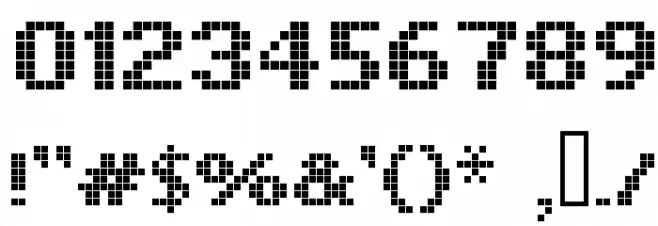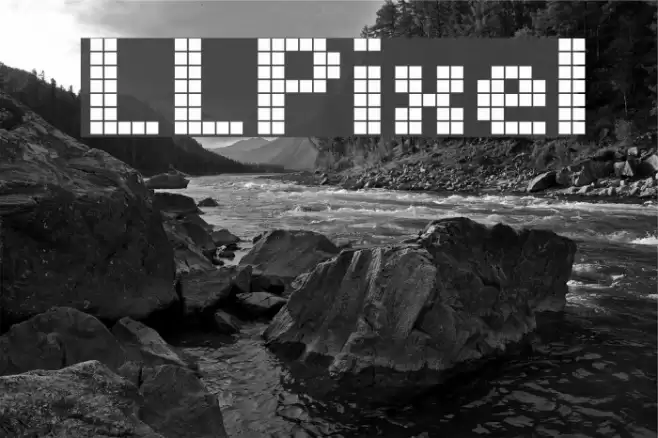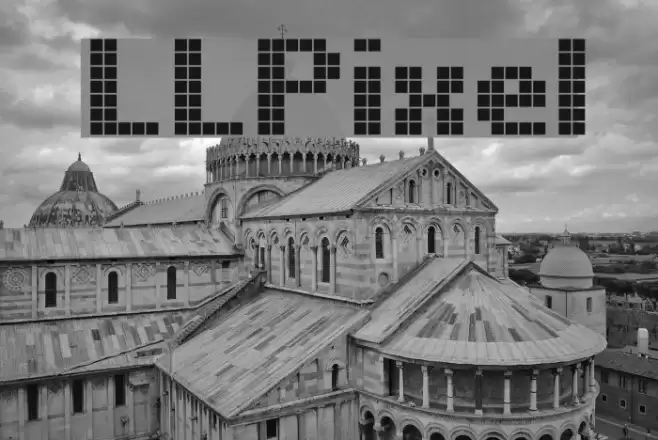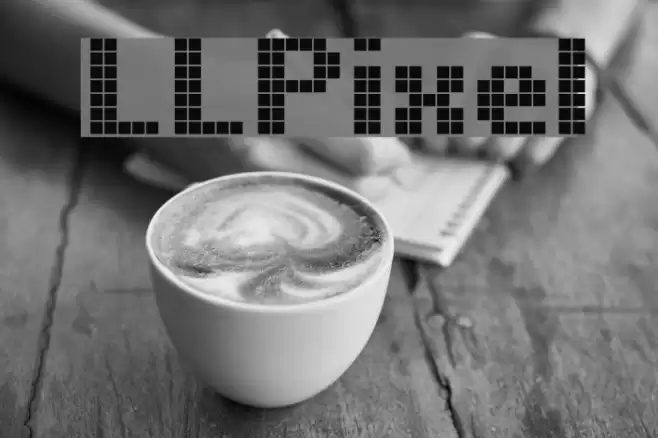
LLPixel Font
LLPixel Description
This font is a pixelated, grid-based design that evokes a retro, digital aesthetic reminiscent of early computer and video game graphics. Each character is constructed from a series of small, uniform squares, creating a blocky, geometric appearance. The uniformity of the squares gives the font a consistent and structured look, while the pixelated style adds a playful and nostalgic feel. The characters are easily legible, making it suitable for display purposes where a vintage or tech-inspired theme is desired. The font includes a full set of uppercase and lowercase letters, numbers, and a variety of special characters, maintaining the pixelated style throughout.
| Proposed Projects | Ideal for retro video game graphics, tech-themed posters, digital art projects, and any design requiring a vintage digital look. |